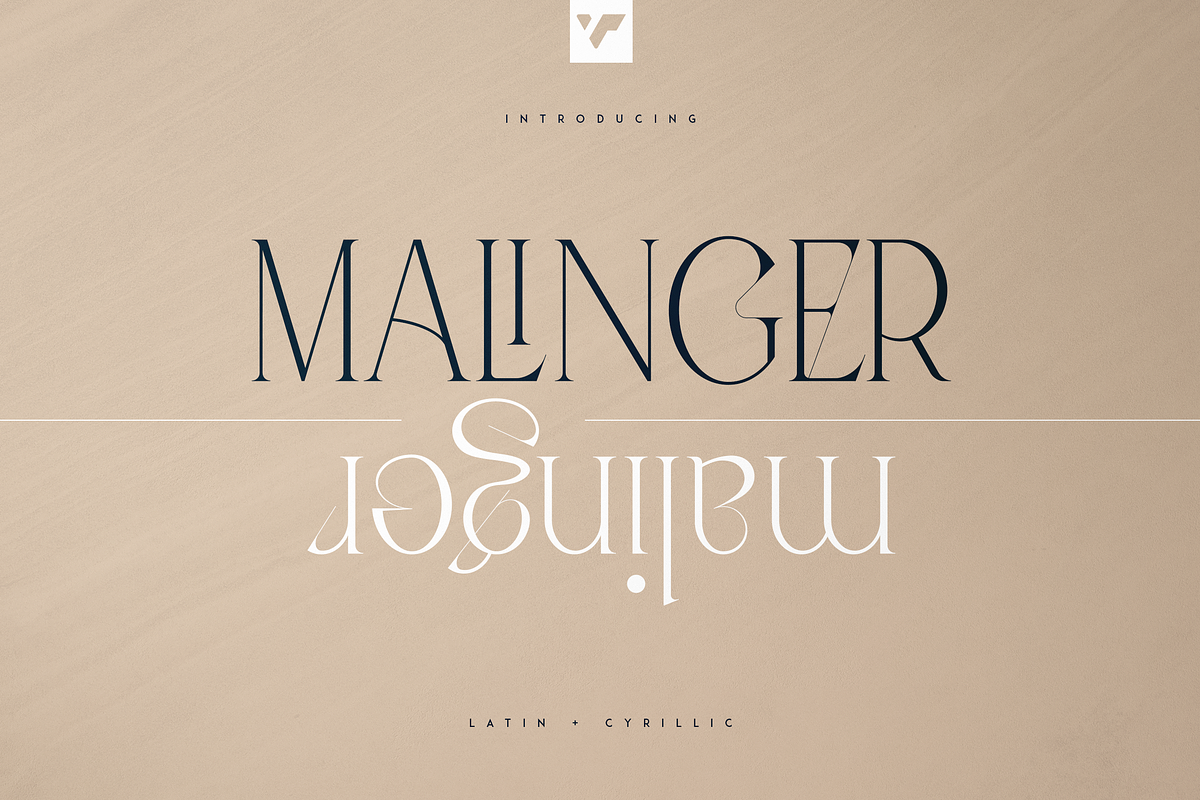
Please note, you must purchase this font for commercial use. However, you can easily download Malinger - Elegant Serif Font Free Download for personal use and testing purposes. Malinger - Elegant Serif Font is a sophisticated and timeless serif typeface designed to add a refined, luxurious touch to your designs. Perfect for high-end branding, editorial layouts, invitations, and more, this font offers clean, graceful letterforms with a classic feel. Whether you're designing a stylish logo, an elegant invitation, or a professional business card, Malinger - Elegant Serif Font Free Download will help elevate your project with its elegant and versatile style. Download Malinger - Elegant Serif Font Free Download today and explore its potential before opting for a commercial license.